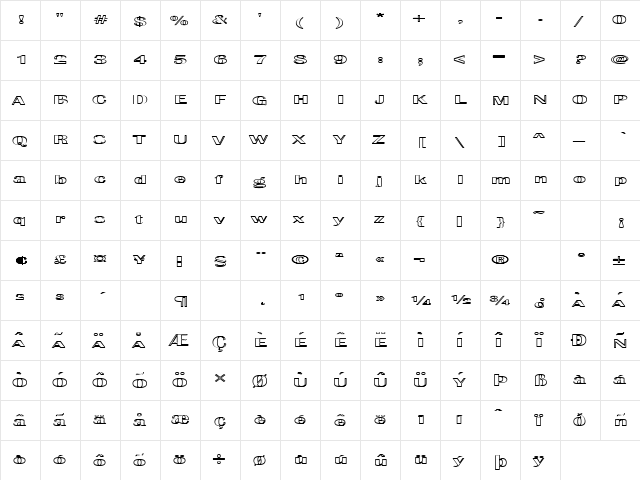
Effluence Outlined
| Style | Outlined |
Design Context for Effluence Typeface
Effluence is built around its visual character rather than neutral utility — its distinctive forms are designed to make an impression at display sizes.
Font Pairing: Pair with a clean neutral sans-serif for body copy to let Effluence's character lead without overwhelming the composition.
Pro Tip: Use Effluence exclusively at display sizes — it was designed to be seen, not read at length. Let a neutral companion handle body copy.